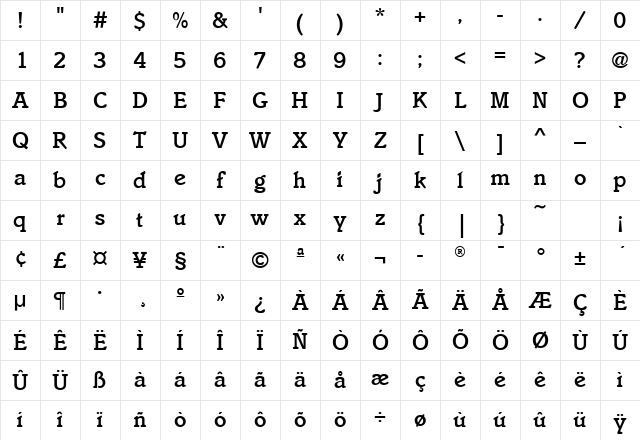
ItaliaMd Medium Free Font
ItaliaMd Medium
Foundry: E+F Designstudio. Italia is a trademark of International Typeface Corporation
Complete ItaliaMd Medium glyph index. Displaying only characters natively supported by ItaliaMd Medium font.
Design Context for ItaliaMd
ItaliaMd is a composed and adaptable typeface that performs quietly and consistently across a wide range of design contexts.
Who designed the ItaliaMd Medium font?